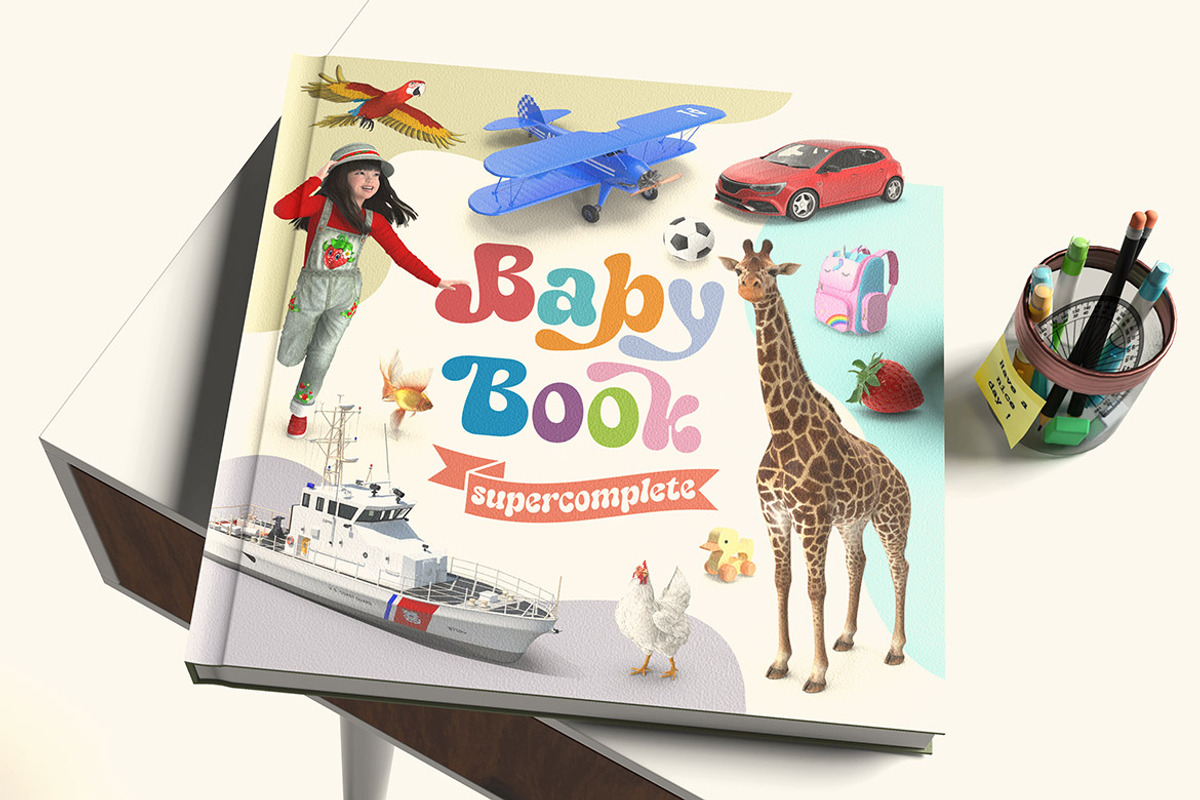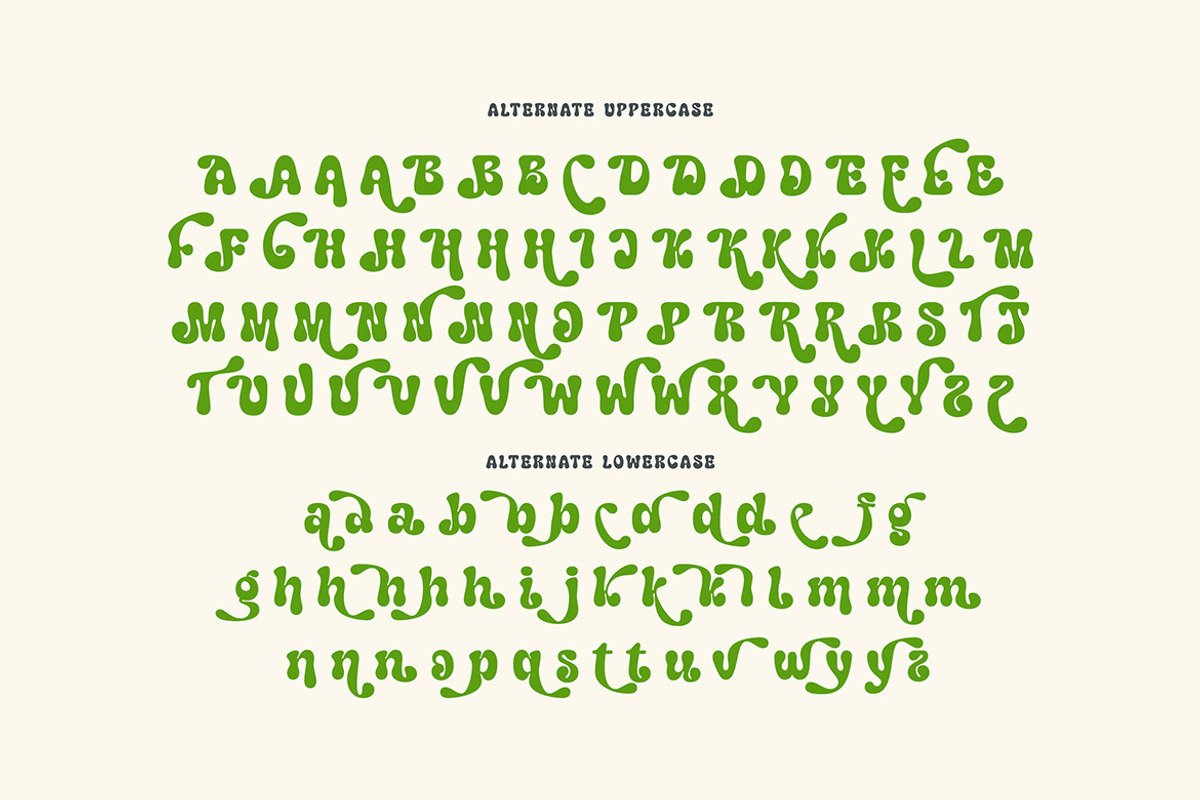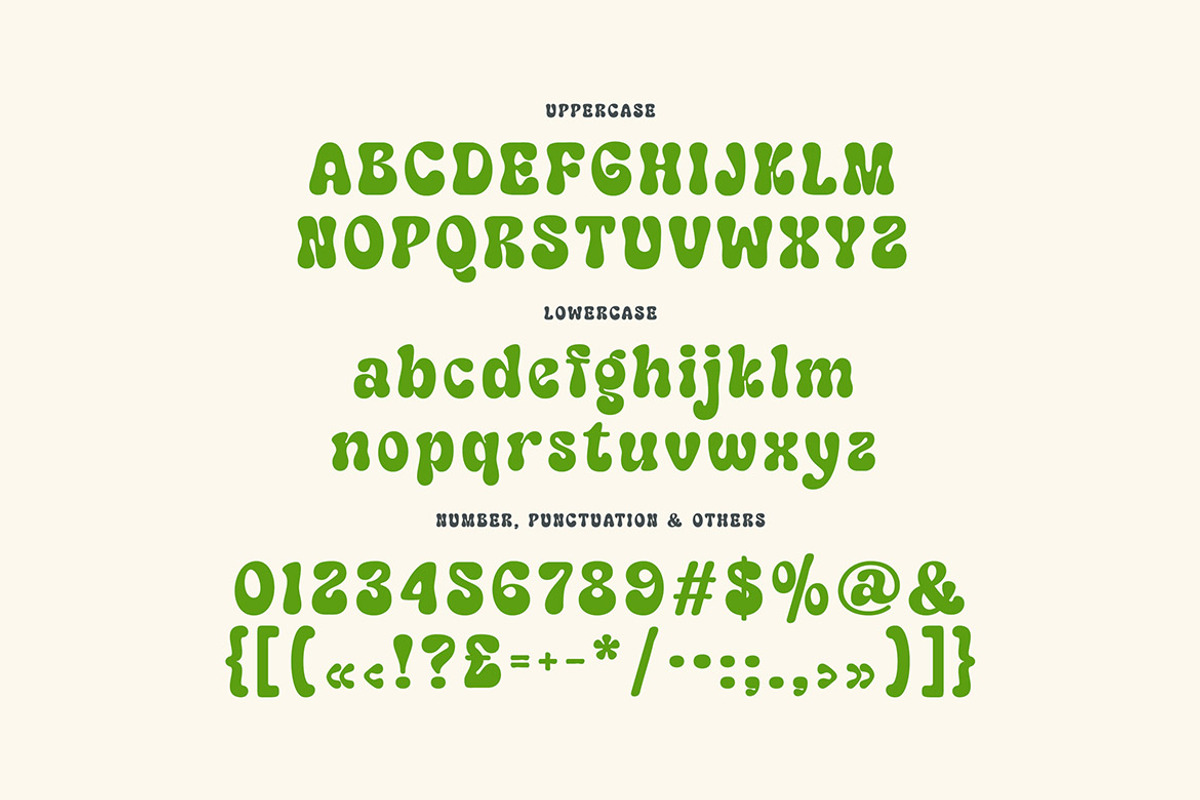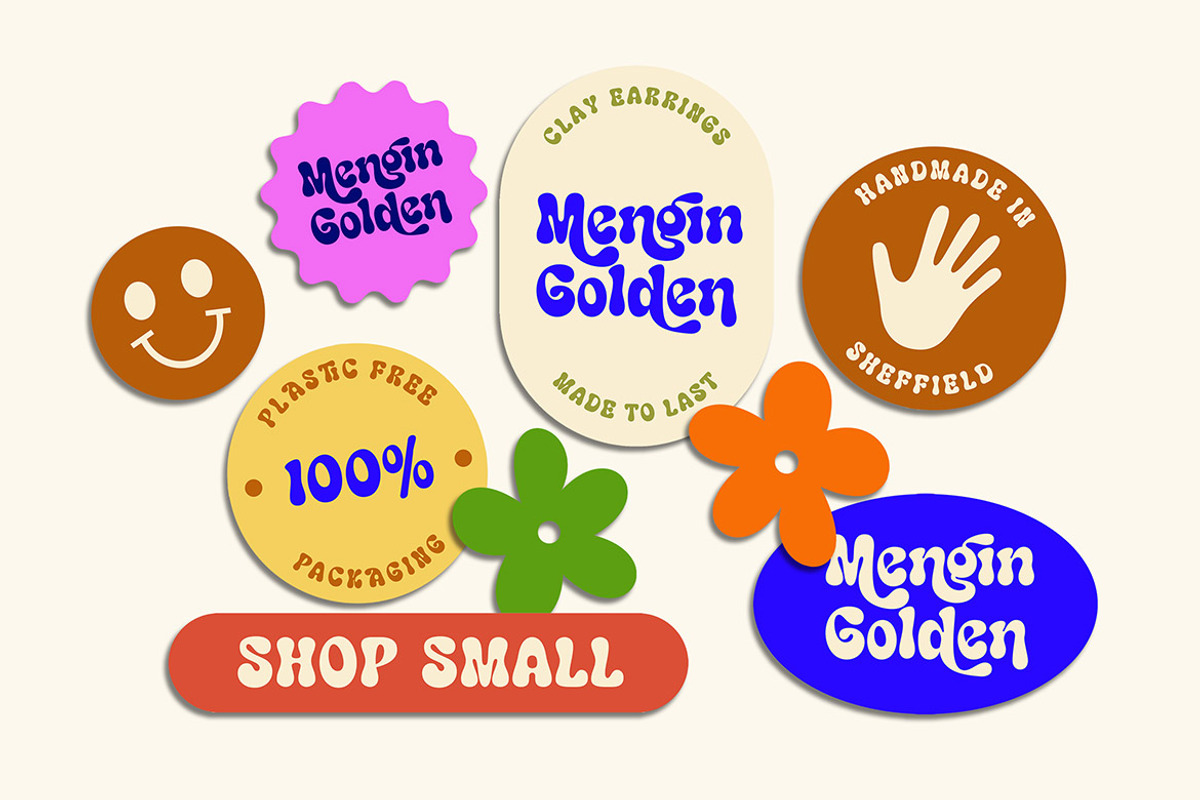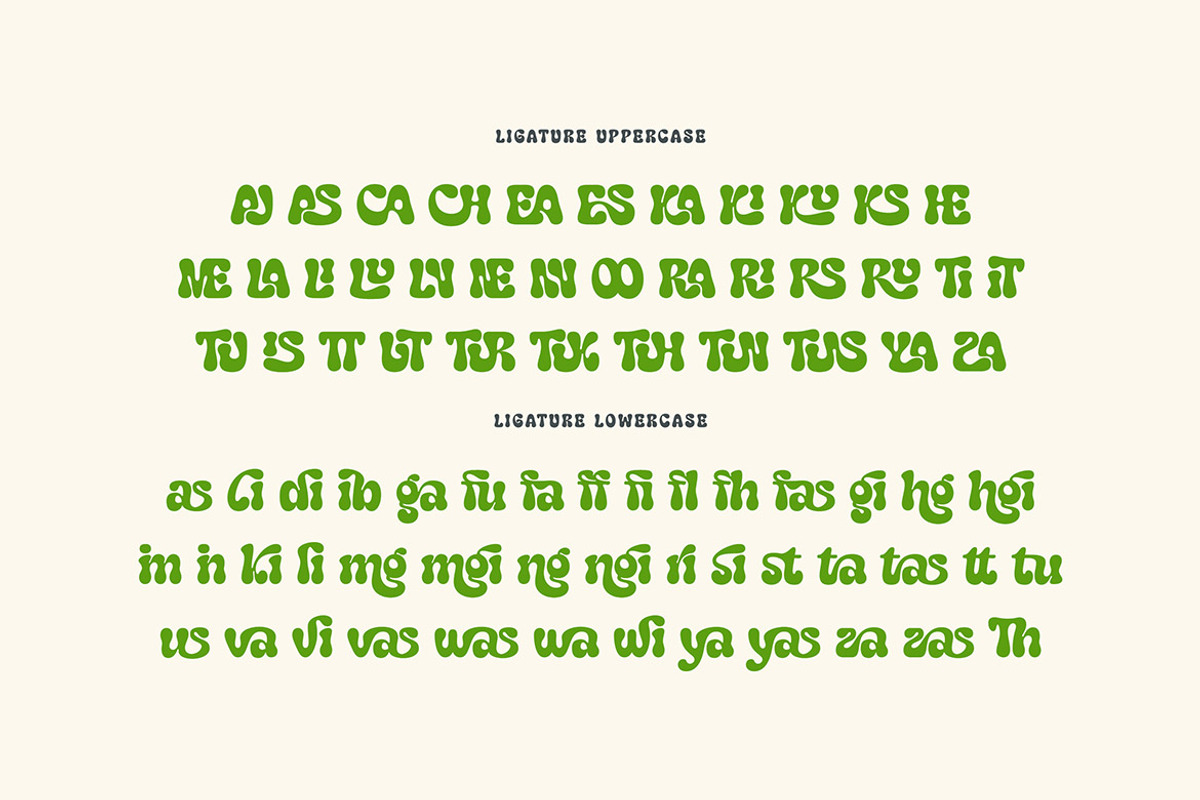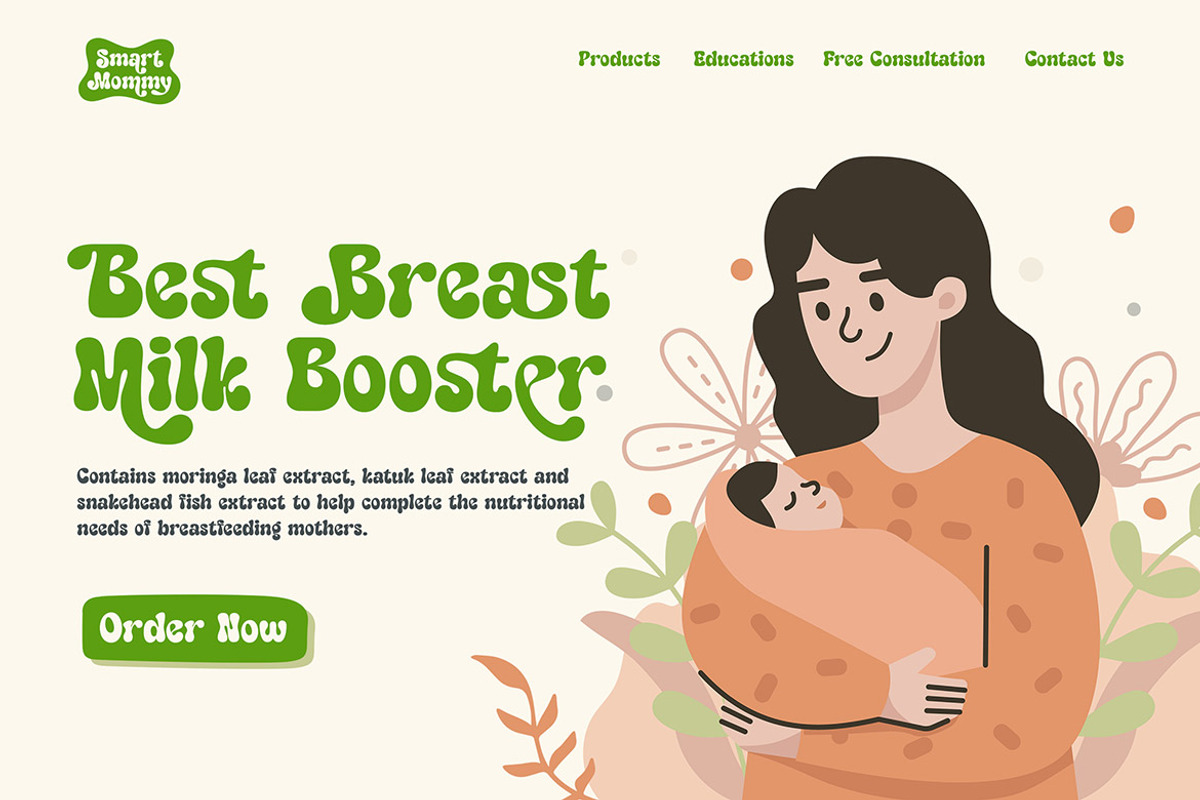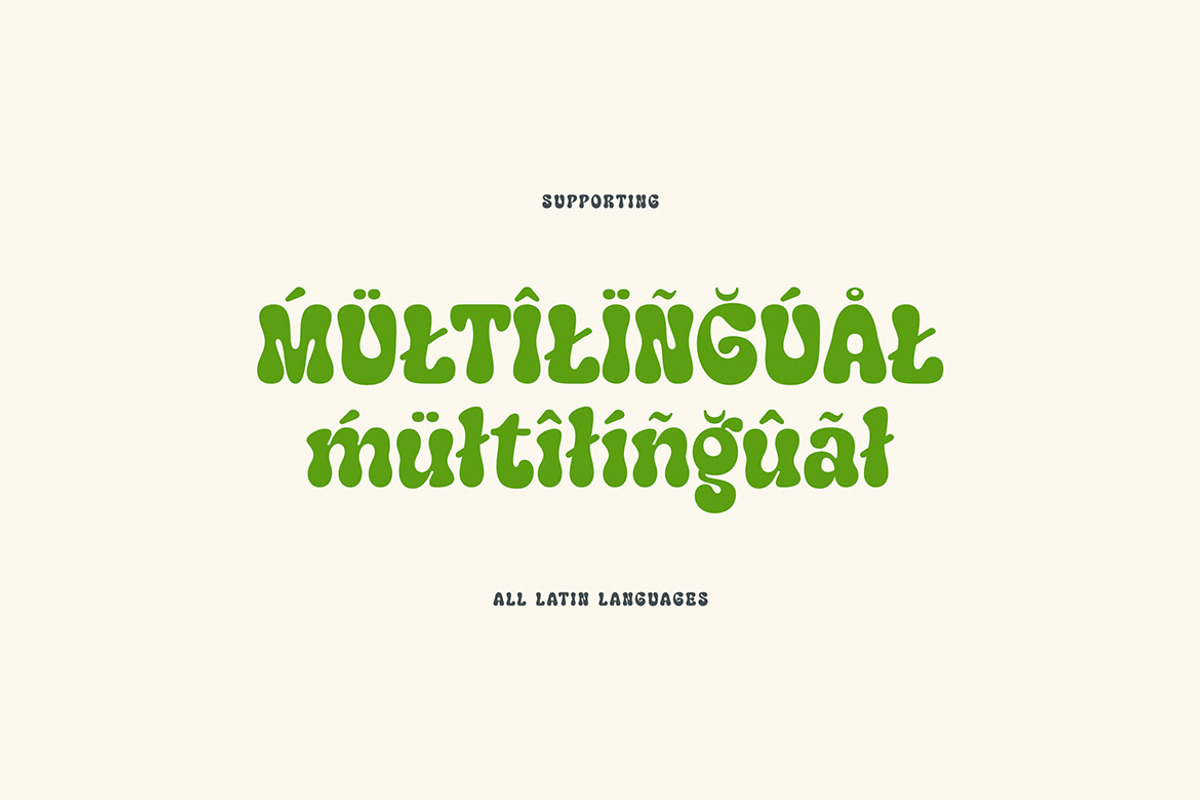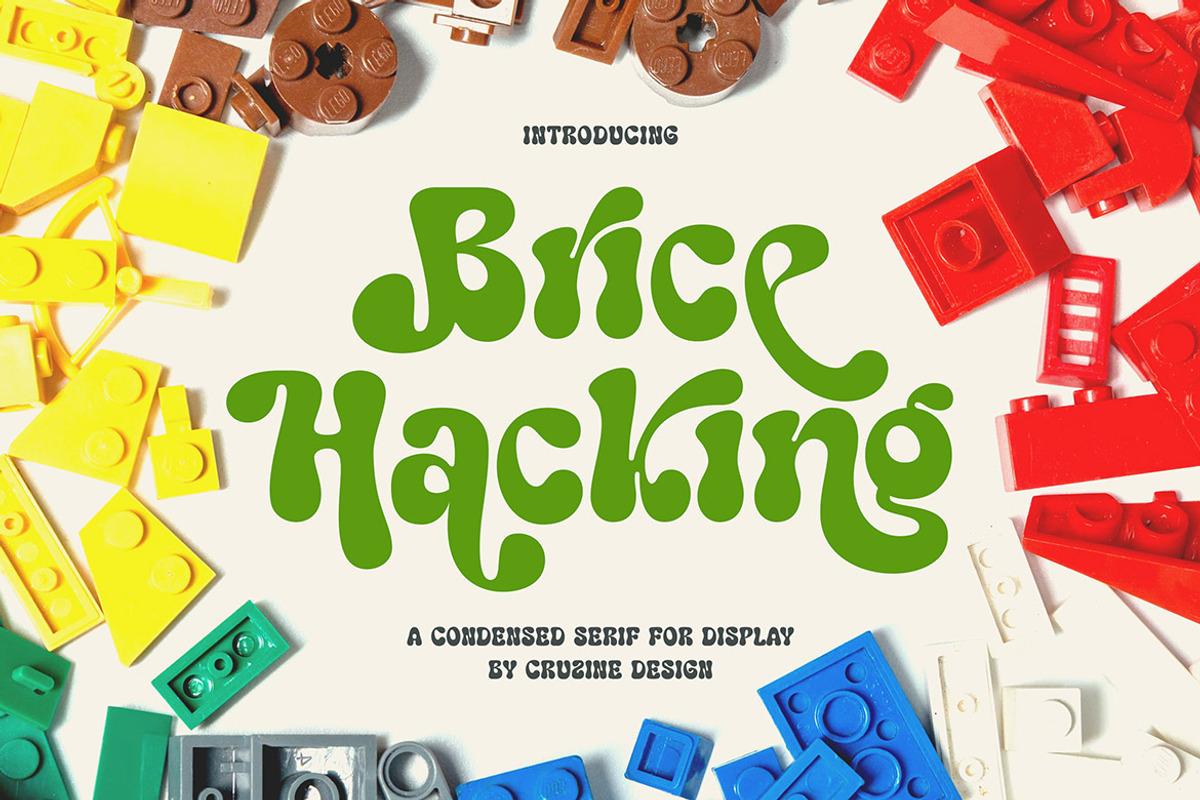
Brice Hacking Groovy Display Font
Bubbly, groovy, funny, retro & rounded style display font for your new playful projects. Happy, cute, bold and quirky style on Brice Hacking font will be great for any creative branding project. Lot of alternates and ligatures will help you to create unique and original logo design or website header! Enjoy :)
- Alternate characters
- Lot of ligatures
- Great for modern branding projects!!